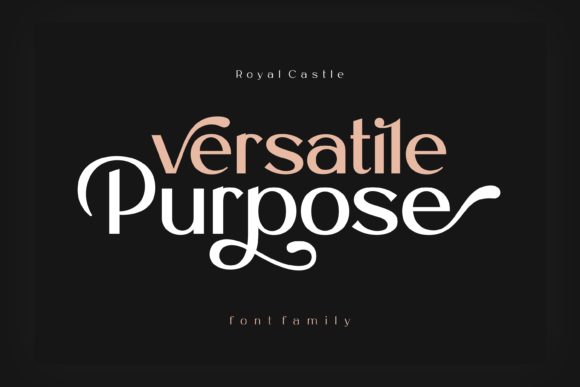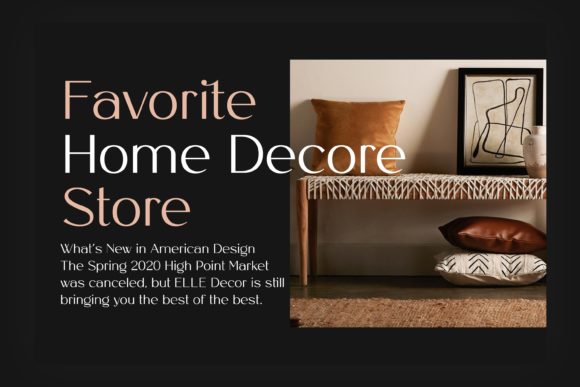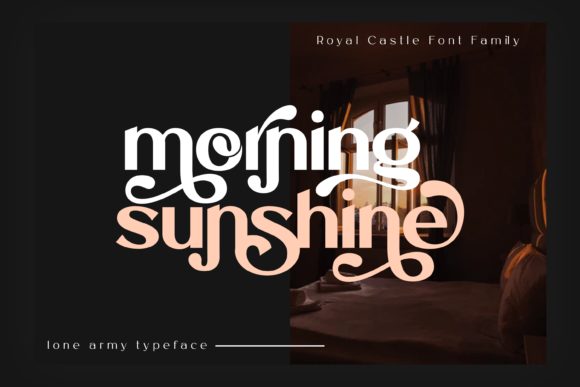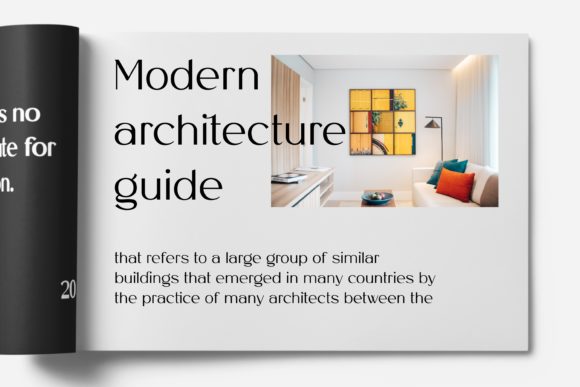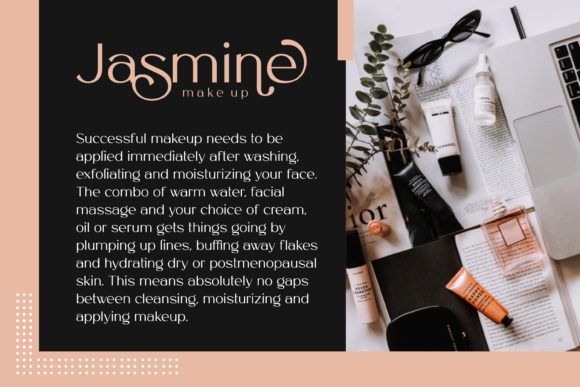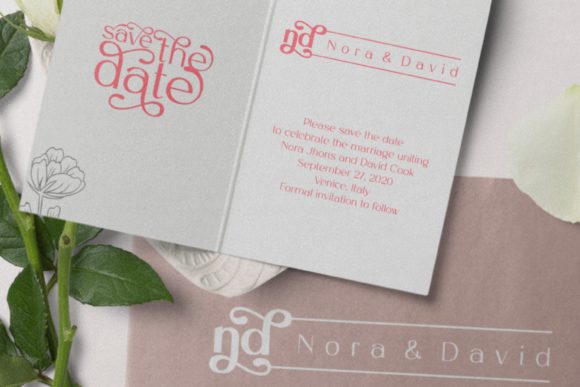
Introduction to Royal Castle Font
As a designer, have you ever stumbled upon a font that instantly transports you to a bygone era, evoking feelings of nostalgia and wonder? For me, that moment came when I discovered the Royal Castle Font. Its unique sans serif style, complete with luxurious flair and amazing swashes, is the perfect addition to any design project seeking a vintage touch.
With its 7 distinct styles, the Royal Castle Font offers an incredible range of creative possibilities. Whether you’re working on a high-end branding project or a whimsical illustration, this versatile font is sure to elevate your design to new heights. And the best part? It’s available for free download, making it an invaluable resource for designers on a budget.
As a valuable design resource, the Royal Castle Font is a game-changer for creatives looking to add a touch of sophistication and elegance to their work. Its high-quality design and transparent background make it a breeze to use, allowing you to focus on what matters most – bringing your creative vision to life.
Key Features of Royal Castle Font
- High-quality, elegant design suitable for a variety of creative projects, including invitations, logos, and branding materials.
- Designed with a large character set, including uppercase and lowercase letters, numbers, and punctuation marks.
- Perfect for adding a touch of luxury and sophistication to any design project, from wedding invitations to corporate branding materials.
Honest Review: Royal Castle Font
As a designer, I’m always on the lookout for high-quality design resources to elevate my creative projects. Recently, I stumbled upon the Royal Castle Font, and I’m excited to share my thoughts on this stunning font.
What works well: ✨ The Royal Castle Font has a unique, medieval-inspired aesthetic that’s perfect for creating a regal, luxurious atmosphere in any design. The font is highly customizable, with a range of weights and styles to choose from, making it easy to adapt to different design needs. The transparent background feature is also a great touch, allowing for seamless integration with any design element.
Limitations: ⚠️ One potential issue I encountered is that the font may not be suitable for all design projects. The ornate details and intricate design elements may not be the best fit for minimalist or modern designs. Additionally, the font may require some additional styling or manipulation to achieve the desired look.
Overall, I’m impressed with the Royal Castle Font. Its unique design and high-quality features make it a valuable addition to any design resource collection. While it may not be suitable for every project, it’s definitely worth considering for those looking to add a touch of luxury and elegance to their designs. And the best part? It’s available for free download!
- Unique, medieval-inspired design
- Highly customizable with various weights and styles
- May not be suitable for all design projects
The Royal Castle Font is a high-quality, free download design resource ideal for creative projects that require a touch of elegance and sophistication. This font features a transparent background, making it easy to layer and combine with other design elements.
Tips for Getting the Most Out of Royal Castle Font
Use the Royal Castle Font in combination with other design elements, such as graphics and textures, to create a unique and visually appealing design. Experiment with different font sizes and styles to add emphasis and create visual interest.
The Royal Castle Font is ideal for use in wedding invitations, branding materials, and other design projects that require a touch of luxury and sophistication.